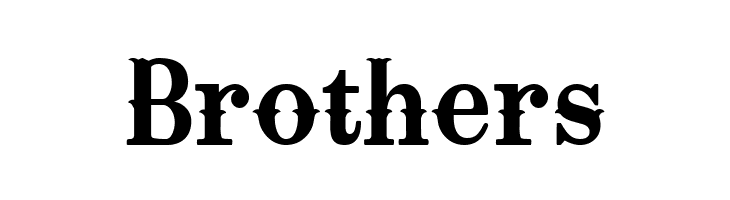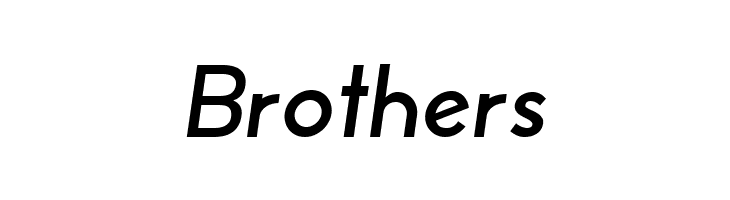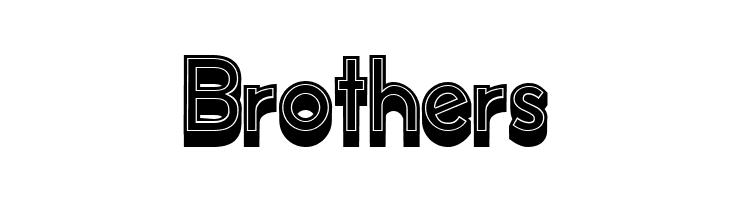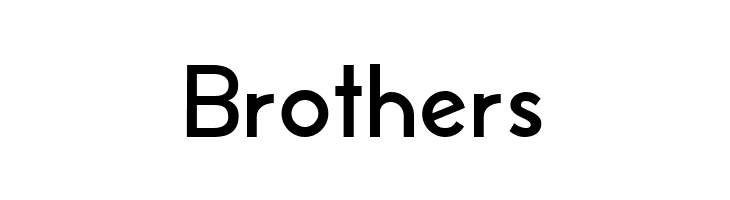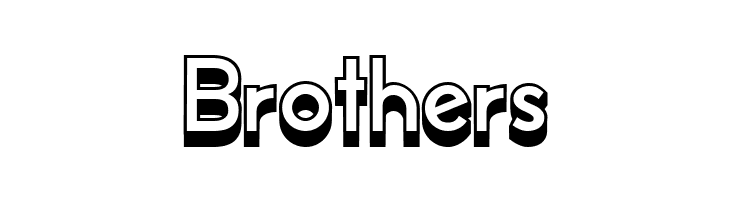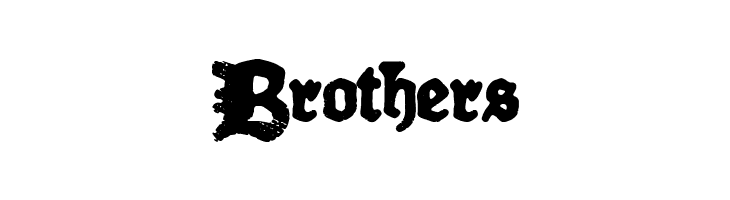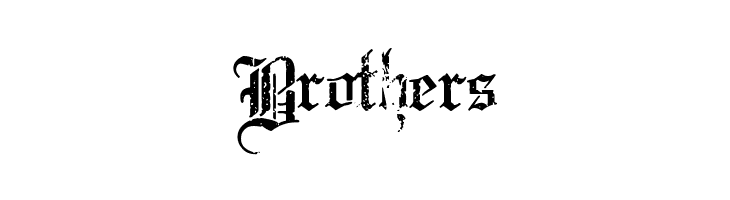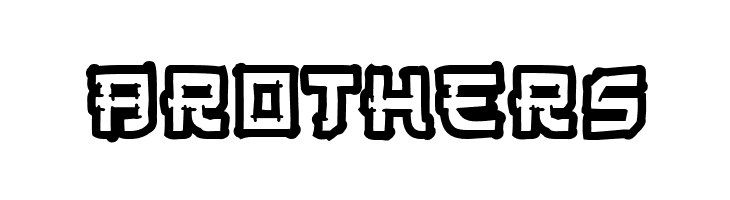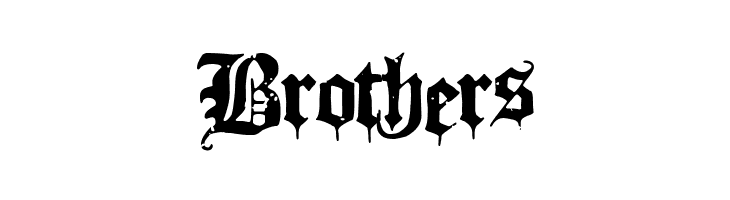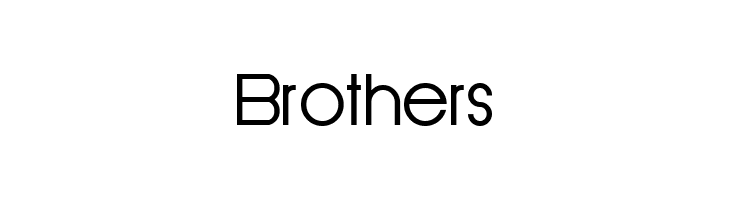
A modern, italic font with clean lines and excellent readability.
A modern, geometric sans-serif font with a clean and balanced design.
A bold, hollow font with a 3D shadow effect, perfect for modern and creative displays.
A bold, three-dimensional font with a modern geometric design.
A modern, geometric font with rounded edges and a clean, minimalistic style.
A classic serif font with elegant lines and medium contrast, perfect for traditional designs.
A classic, elegant italic serif font with graceful slants and delicate serifs.
An elegant serif italic font with smooth curves and classic style.
A classic serif font with elegant strokes and a vintage aesthetic.
An elegant italic serif font with a classic and sophisticated style.
A playful, bubbly font with thick, rounded shapes and a whimsical style.
A bold, decorative font with star patterns in each character.
A playful, modern font with rounded, smooth letterforms and a friendly aesthetic.
A bold, blocky font with a 3D effect, ideal for digital and retro themes.
A playful, informal handwritten font with rounded, consistent strokes.
A bold, geometric font with sharp angles and a modern style.
A bold, ornate font with medieval-inspired design and intricate details.
A dramatic Gothic font with ornate, medieval-inspired details.
A bold, geometric font with a Japanese calligraphy-inspired design.
Ornate vintage ornament borders with intricate detailing.
A pixelated, retro-style font with a blocky, geometric design.
A bold, distressed Blackletter font with intricate details and a vintage feel.
A playful, hand-drawn font with a cartoonish, nostalgic style.
A classic serif font with a vintage and elegant style.